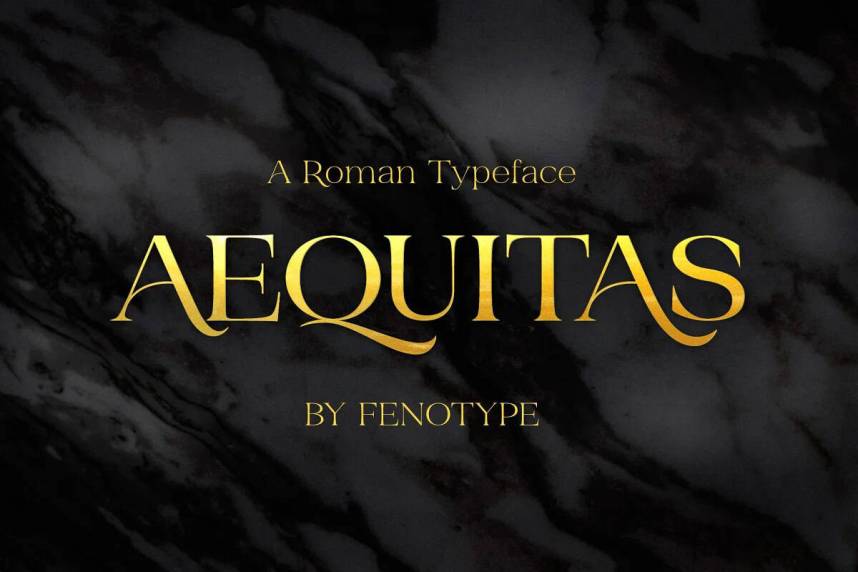
Aequitas Font Family
Aequitas Font is perfect for law firm branding, justice advocacy organizations, legal document headers, constitutional law materials, judicial institution signage, ethics training programs, fairness campaign graphics, and balanced mediation service logos.
This font is exciting because it embodies unwavering justice with balanced letterforms that capture the moral authority and principled integrity of those who uphold fairness and defend equality under law. Aequitas Font brings judicial sophistication to designs through its symmetrical structure and authoritative styling that feels like typography carved from courthouse marble and blessed with the wisdom of balanced judgment. The font's ethical character makes it perfect for legal brands and want to communicate integrity, fairness, and the kind of moral clarity that ensures justice prevails and equality flourishes.
The Aequitas Font family includes Regular, Bold, Light, Constitutional, Judicial, and Balance variants, each designed to capture different aspects of legal authority while maintaining the font's characteristic just appeal and ethical authenticity. The character set features balanced details that enhance the font's connection to justice principles and legal excellence.
Whether you're creating branding for legal institutions, designing materials for justice campaigns, or developing content that needs to project moral authority, Aequitas Font Free Download delivers the principled typography that upholds the highest standards of justice and ethical leadership. This remarkable typeface transforms text into declarations of fairness that resonate with the same unwavering integrity and moral courage found in the world's most respected legal institutions, ensuring your message communicates the profound commitment and ethical excellence that defines brands dedicated to protecting justice, defending equality, and maintaining the balanced scales that ensure fairness for all people regardless of background or circumstance.